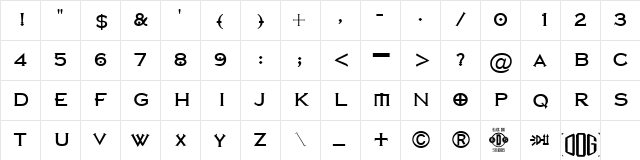
Nirvana Roman
Design Context for Nirvana Typeface
Nirvana is a composed and adaptable typeface that performs quietly and consistently across a wide range of design contexts.